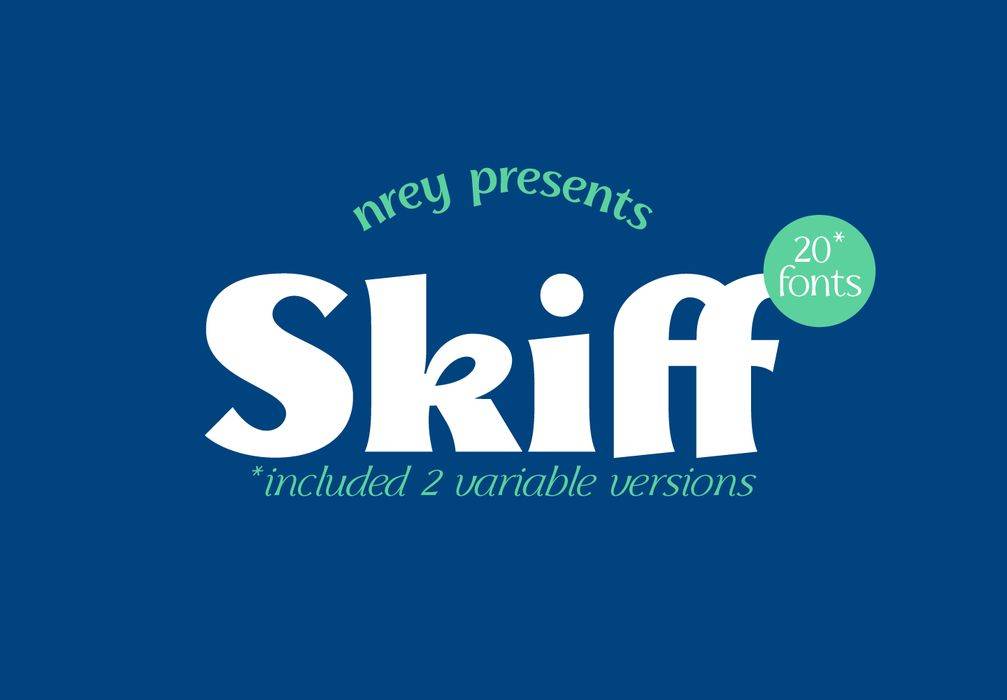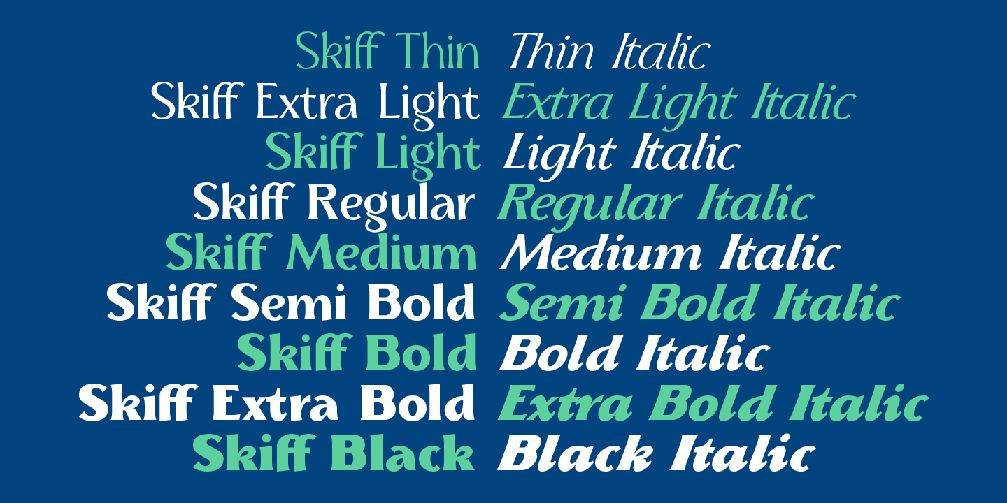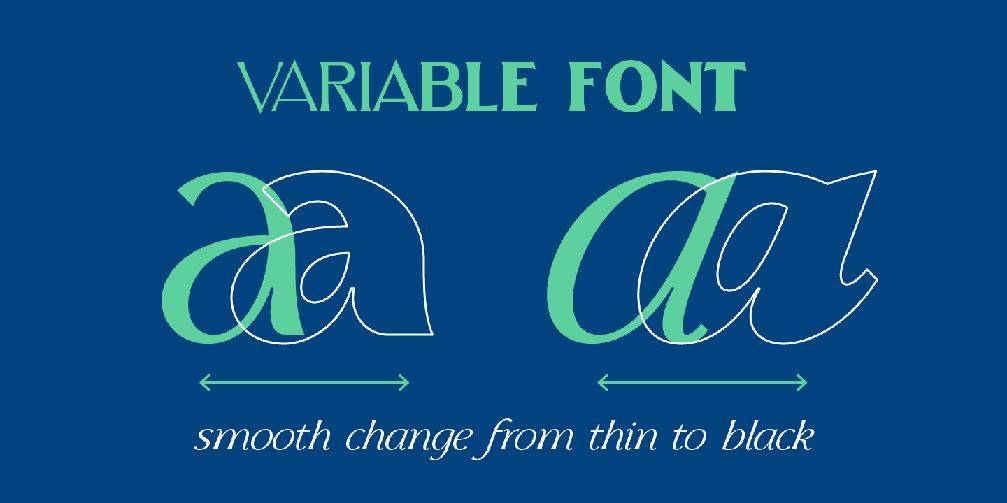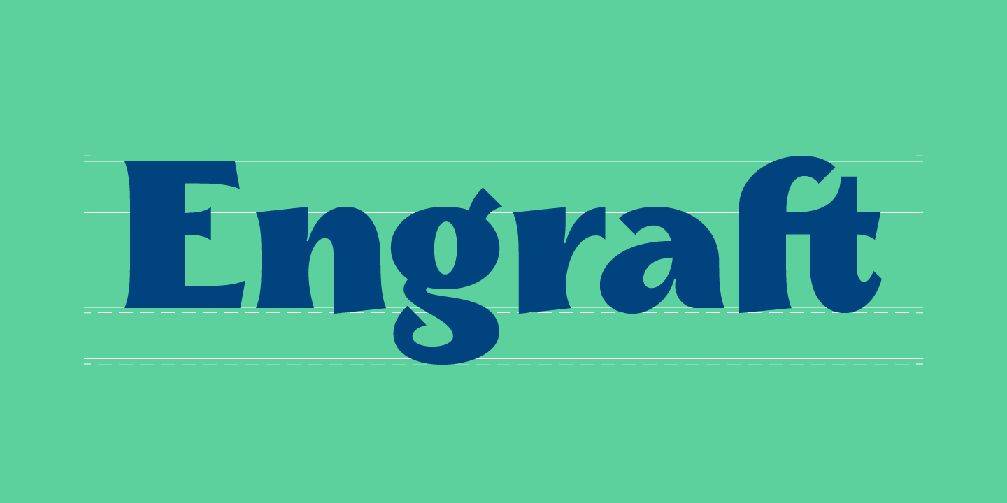
Skiff Regular is a serif typeface with a charming, slightly whimsical character, featuring moderate contrast and sharp, bracketed serifs that give it a refined yet approachable feel. Its unique letterforms, like the single-story 'g' and the distinctive 'Q' tail, add personality while maintaining legibility, making it ideal for stylish headlines, editorial design, and branding that aims to balance elegance with a touch of playfulness. This font is well suited for use in fashion, lifestyle, and creative industries where a modern twist on classic serif forms is desired.
Skiff Regular Font
About Skiff Regular Font
| Font family | Skiff Regular Font |
| Release date | 2019-04-15 |
| Designer | NREY |